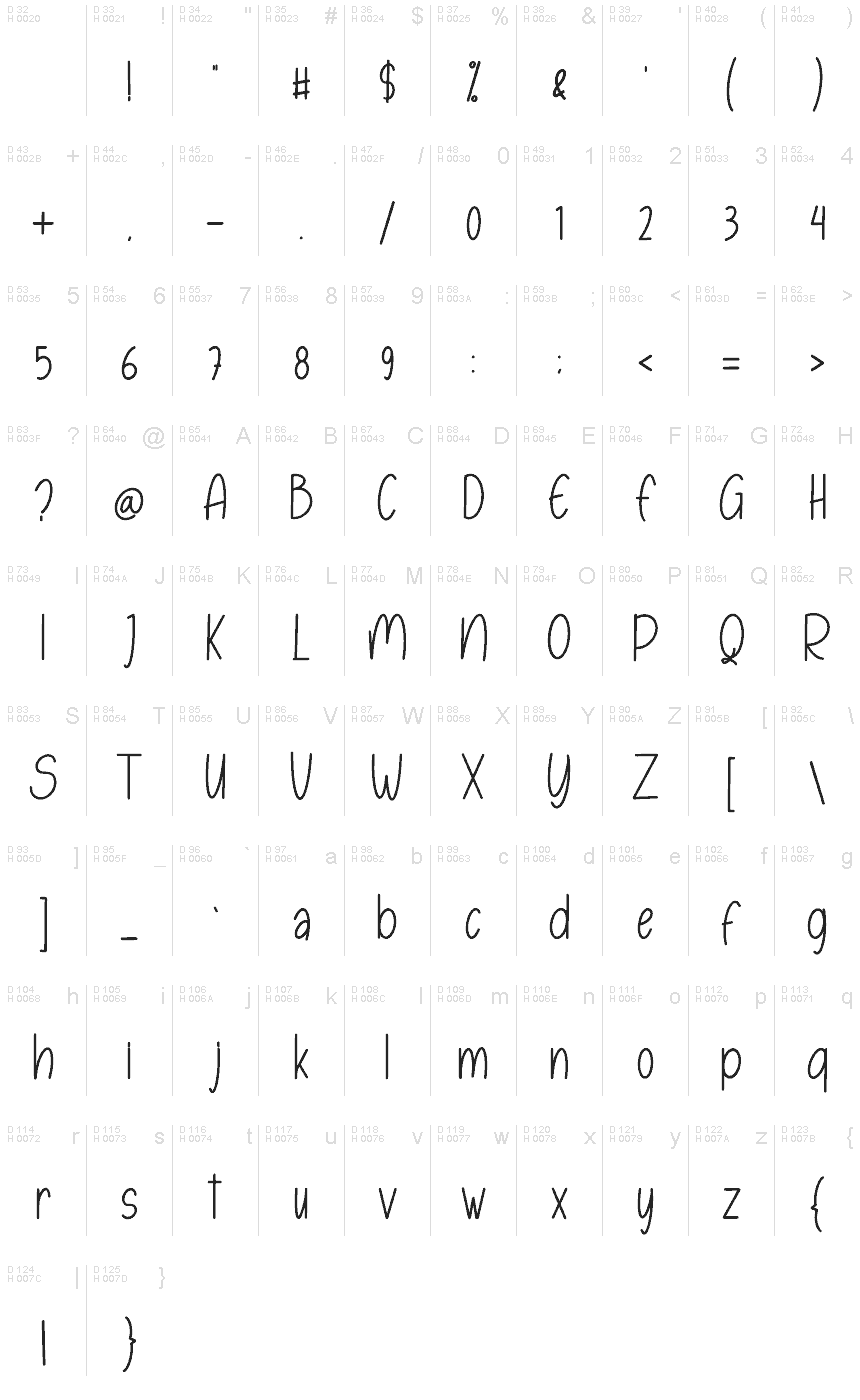
Esmonthy
Esmonthy font by Skiiller Studio is a relaxed, friendly font with elegant and sophisticated handwritten touches. The thin and condensed letters give individuality to the set which makes it instantly recognizable.
This free handwritten font will be the best casual option for packaging (boxes, bottles), labels, badges, and logos. Use it for posters, magazines, newspapers, newsletters in addition to digital projects such as websites and social media posts.